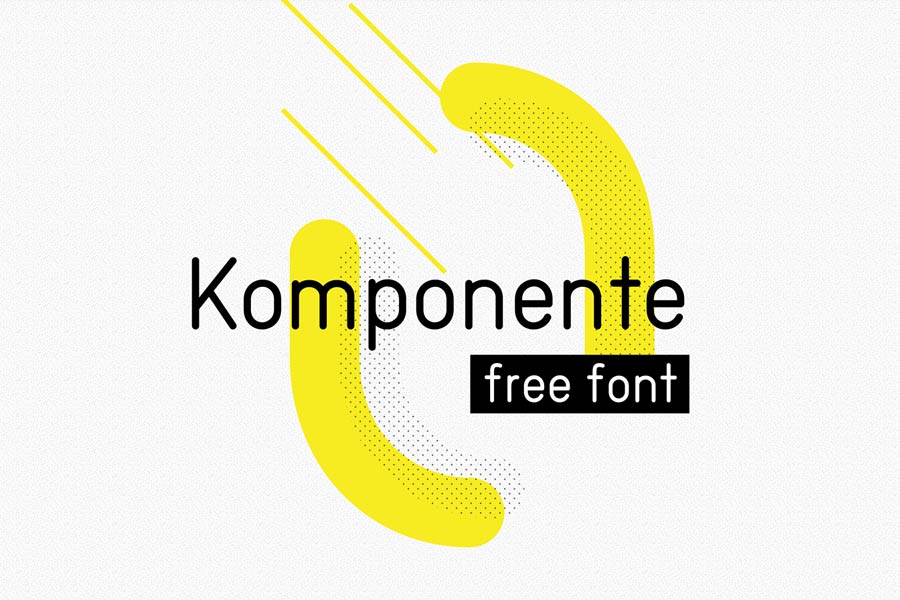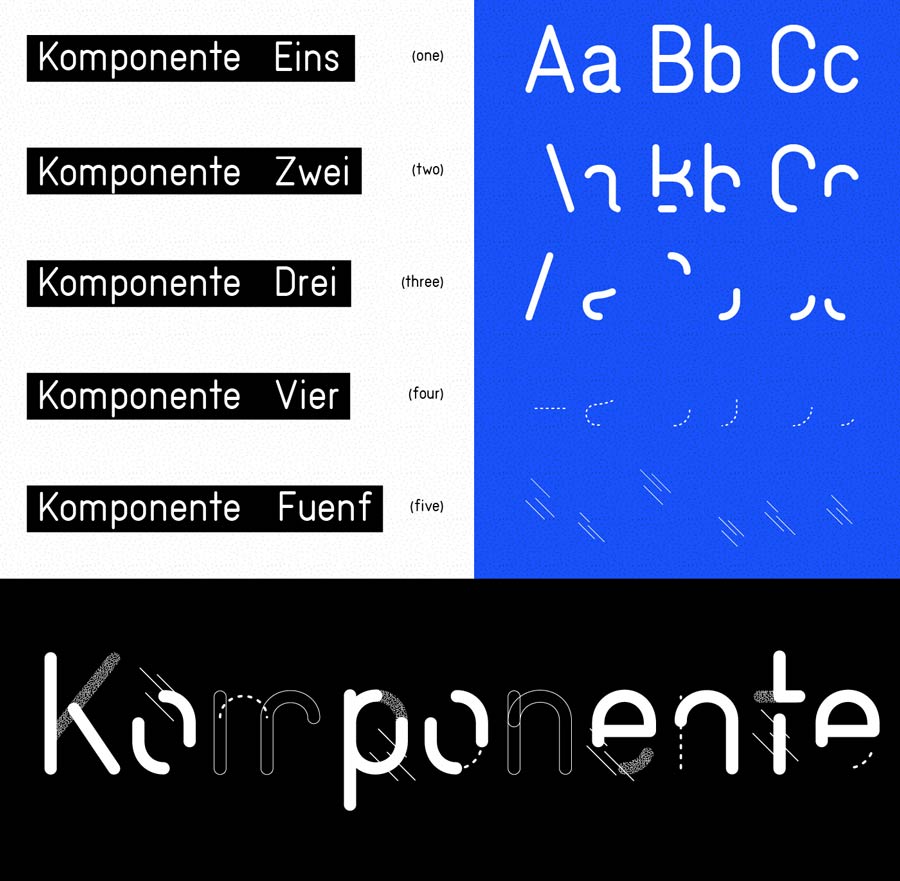
Komponente is a font family that consists of five styles where you can mix and match them up together to create interesting combinations. Like the suggestion from the name itself, these font styles acted as a “component”, and it’s up to your imagination to create new meaning from it.
- Designer: Jan Herkens
- Styles: 5
- Category: Display, Rounded